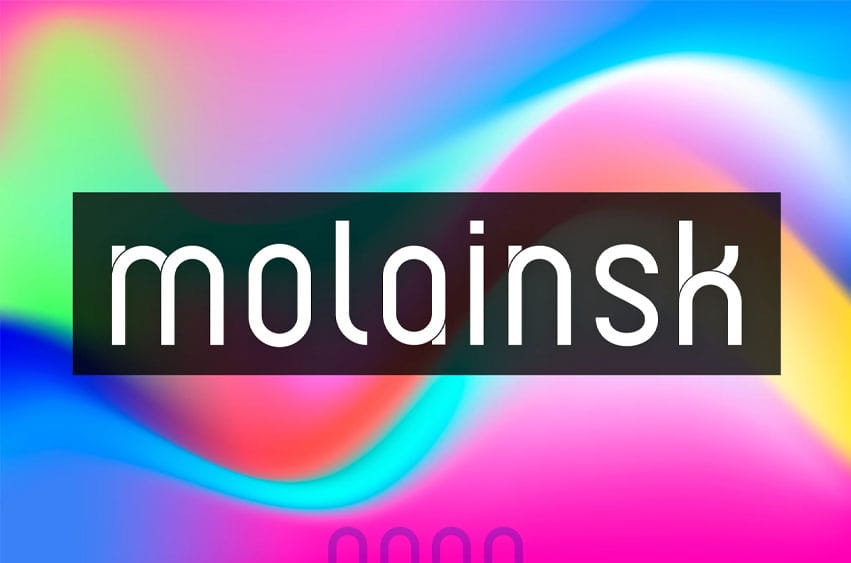
Molainsk Font is a clean, modern, and minimalist font that is inspired by curved shapes. It’s very versatile in use, especially in logo design or brand identity projects.